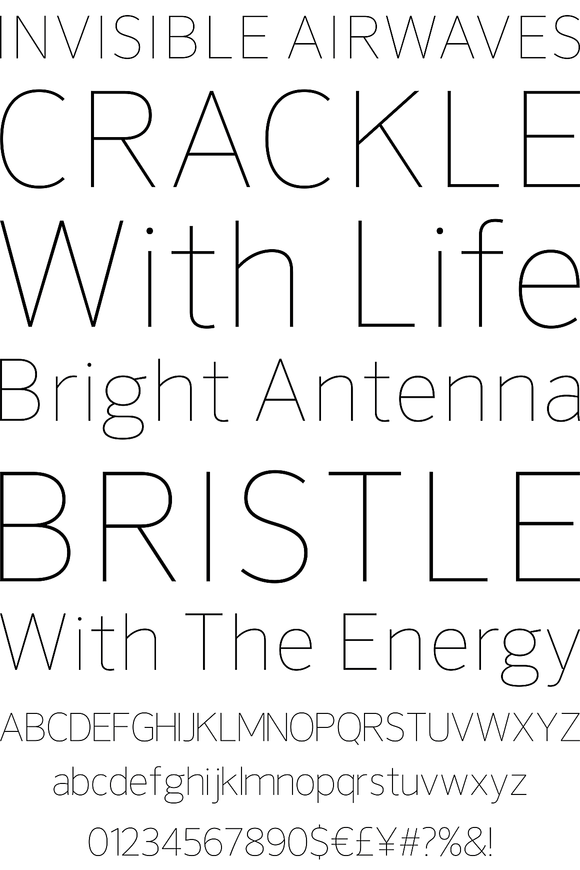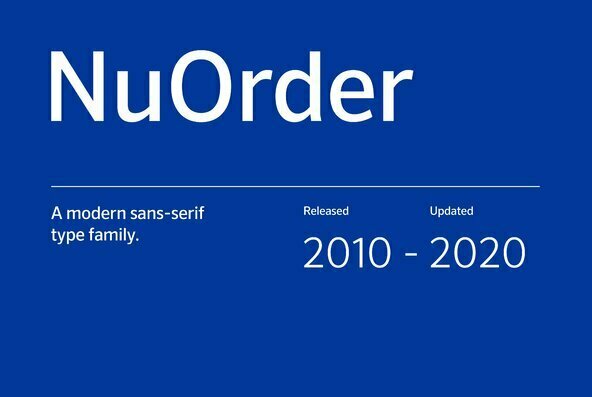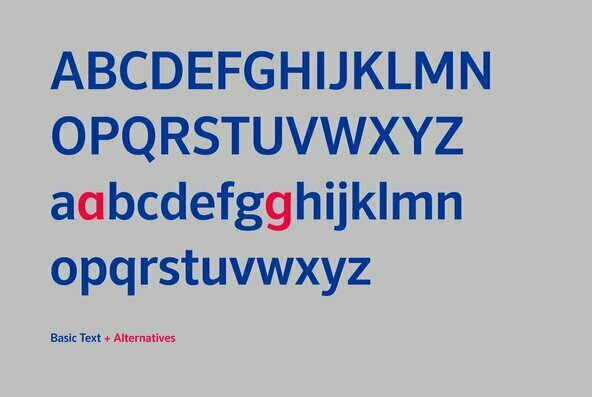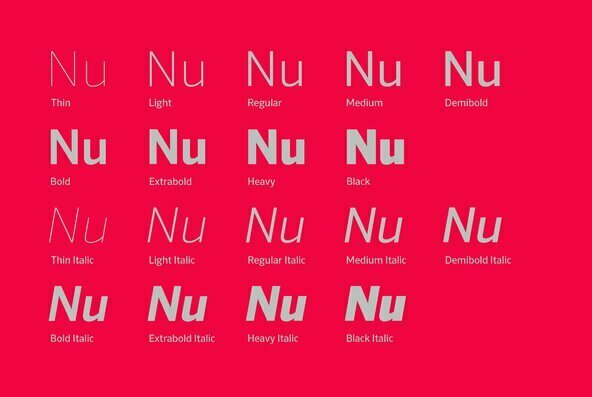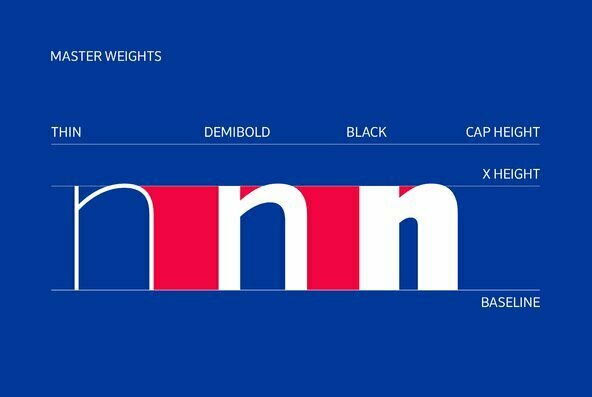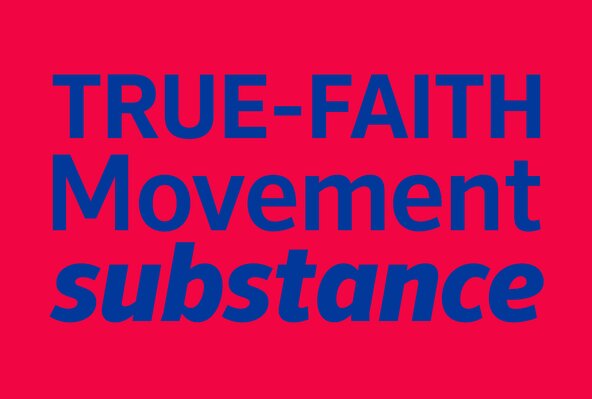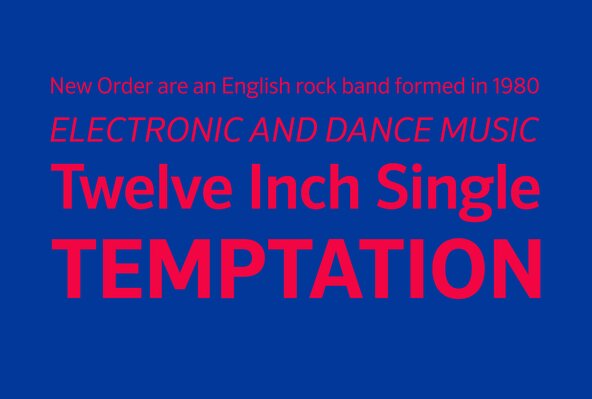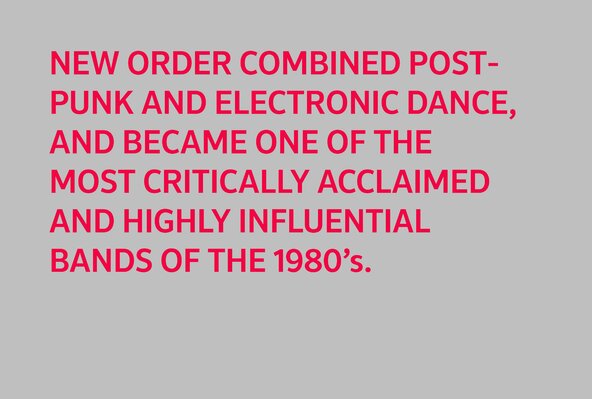
NuOrder
Foundry: The Northern Block
A modern geometric sans-serif typeface. The initial concept is based on early grotesque style fonts that use imperfect circles in their letterforms. The font is then constructed using a more geometric mono line technique to create a precise and legible typeface. Details include 5 weights with italics, a complete character set, manually edited kerning and Euro symbol.